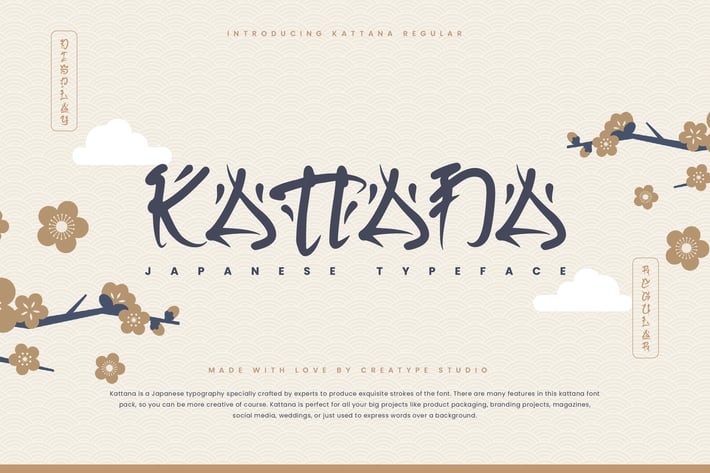
Kattana Japanese Business Font
Kattana is a Japanese typography specially crafted by experts to produce exquisite strokes of the font. There are many features in this kattana font pack, so you can be more creative of course. Kattana is perfect for all your big projects like product packaging, branding projects, magazines, social media, weddings, or just used to express words over a background.
Kattana is perfect for branding projects, logo, wedding designs, social media posts, advertisements, product packaging, product designs, label, photography, watermark, invitation, stationery and any projects that need handwriting taste.
Ton of glyphs
Ligature & Alternate